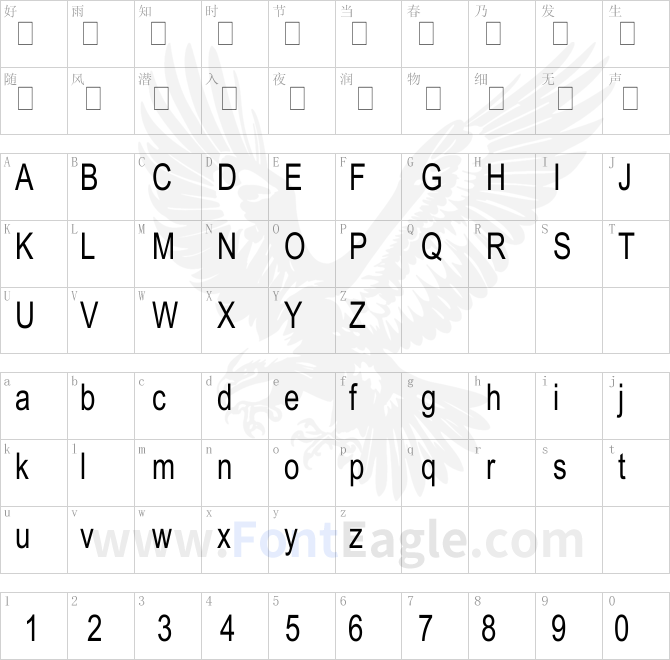
- Font name:Arial Th
- Font Subfamily ID:ALLTYPE:Arial Th Regular:ATECH
- Font Full Name:Arial Th
- Font Version:Converted from C:\ALLTYPE\ARIAL.TF1 by ALLTYPE
- Postscript:ArialTh